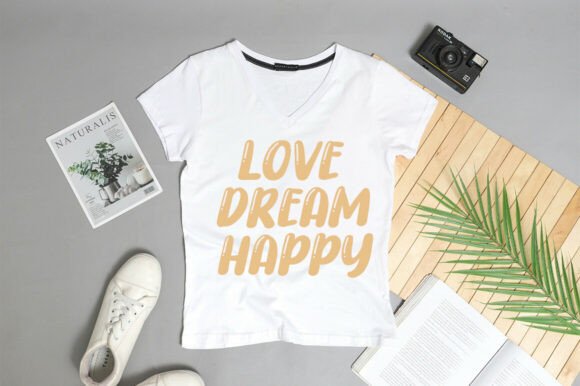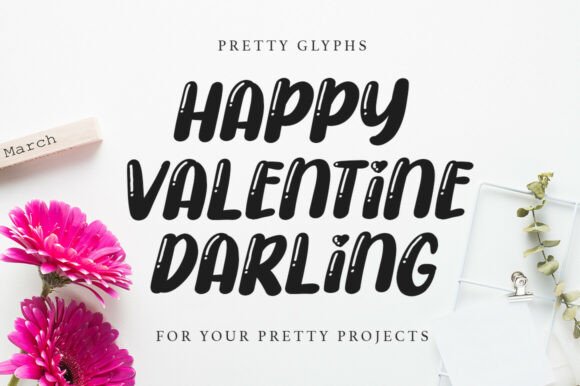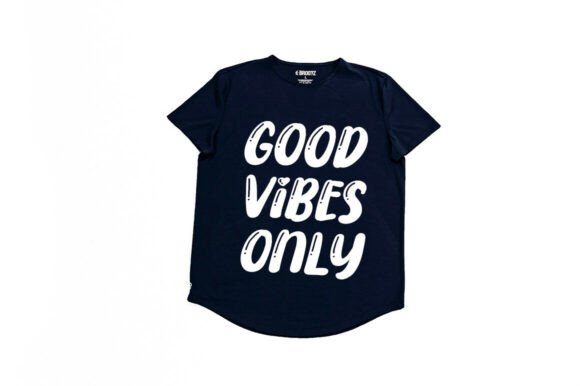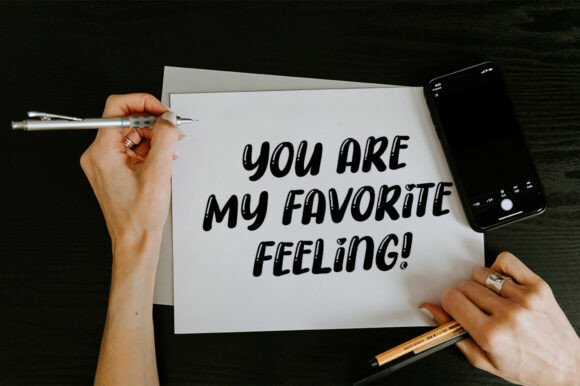
Introduction to Shine Slanted Font
Add a dose of handcrafted joy to your creative projects with Shine Slanted, a fun bubble handwritten font designed for maximum charm.
This typeface features bold, chunky letterforms characterized by soft, rounded contours and playful โshineโ accents that evoke the nostalgic look of classic pop art and inflatable aesthetics Its rhythmic forward lean and friendly, organic rhythm make it an exceptional choice for playful product packaging, DIY craft headers, nursery decor, and engaging social media graphics.
Key Features of Shine Slanted Font